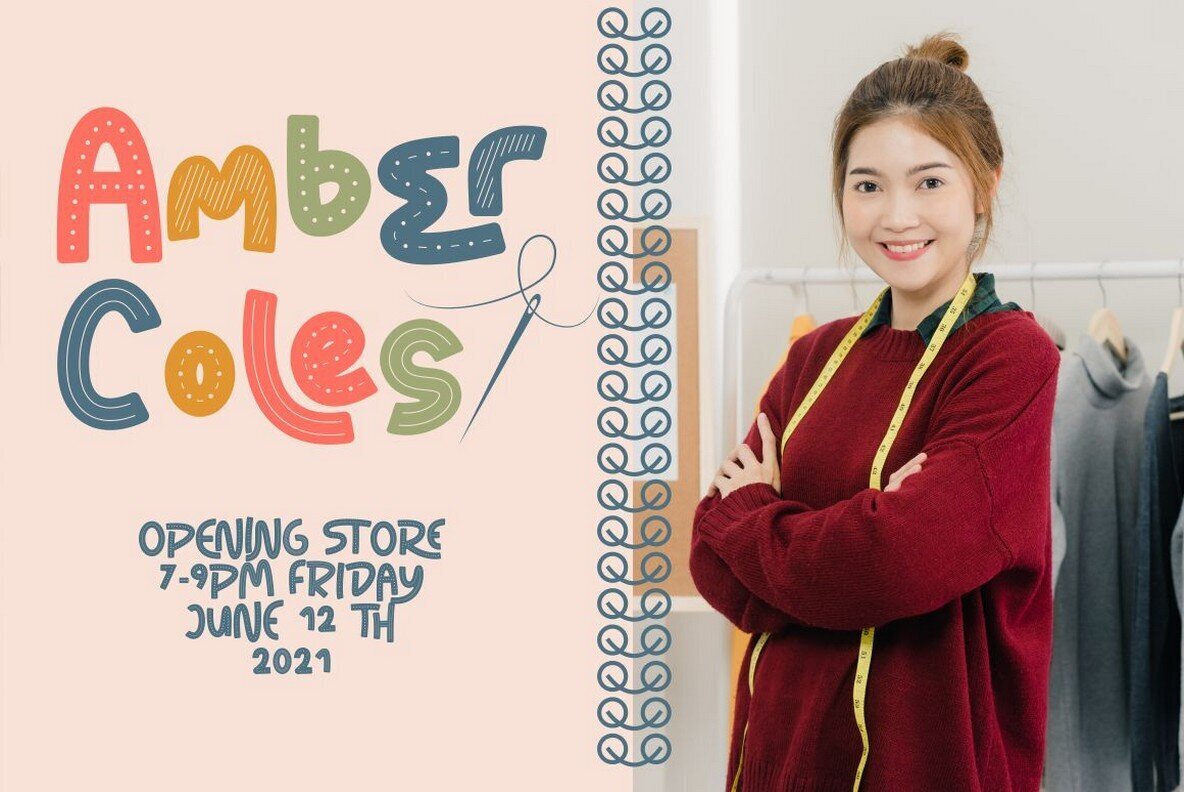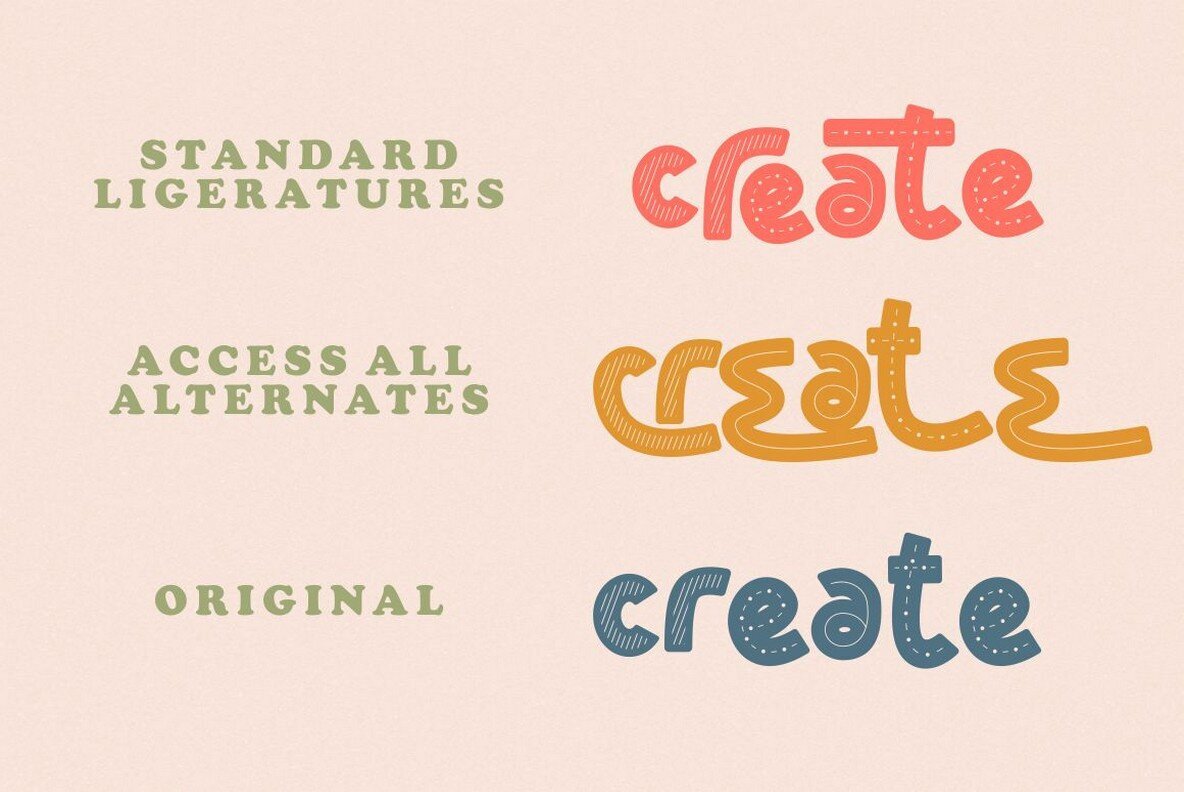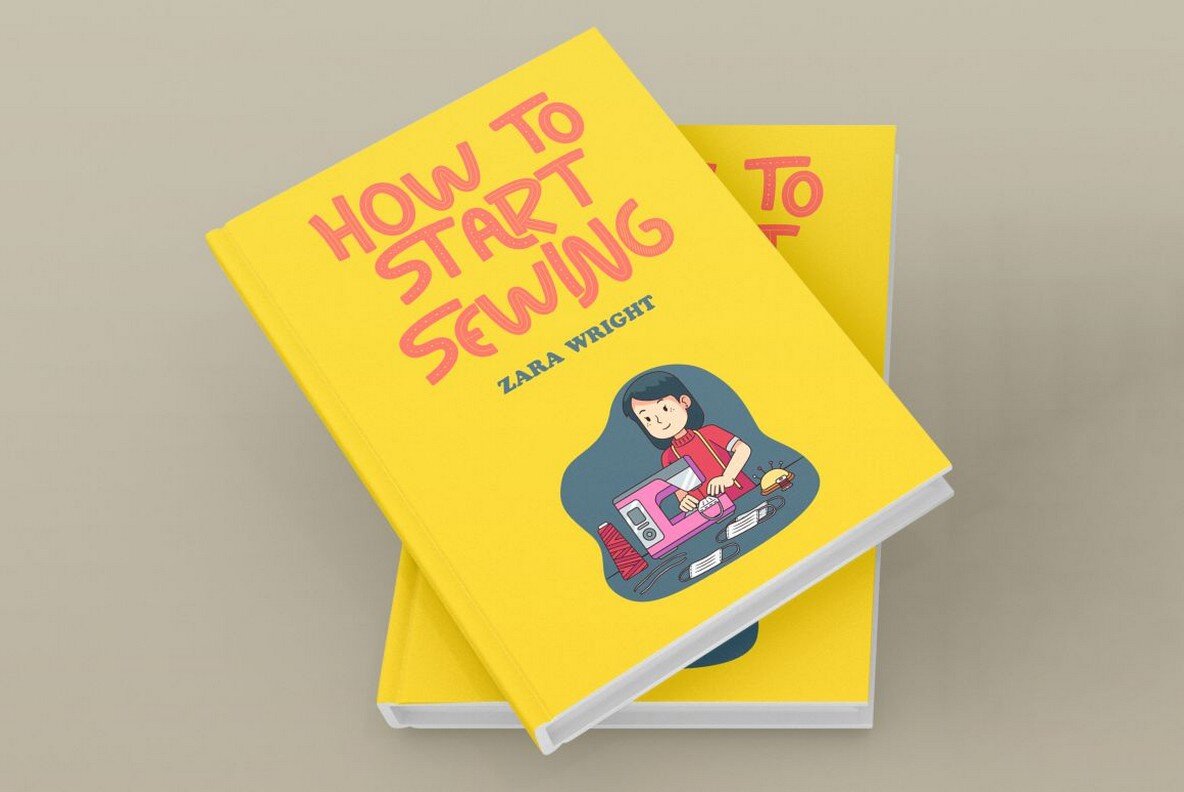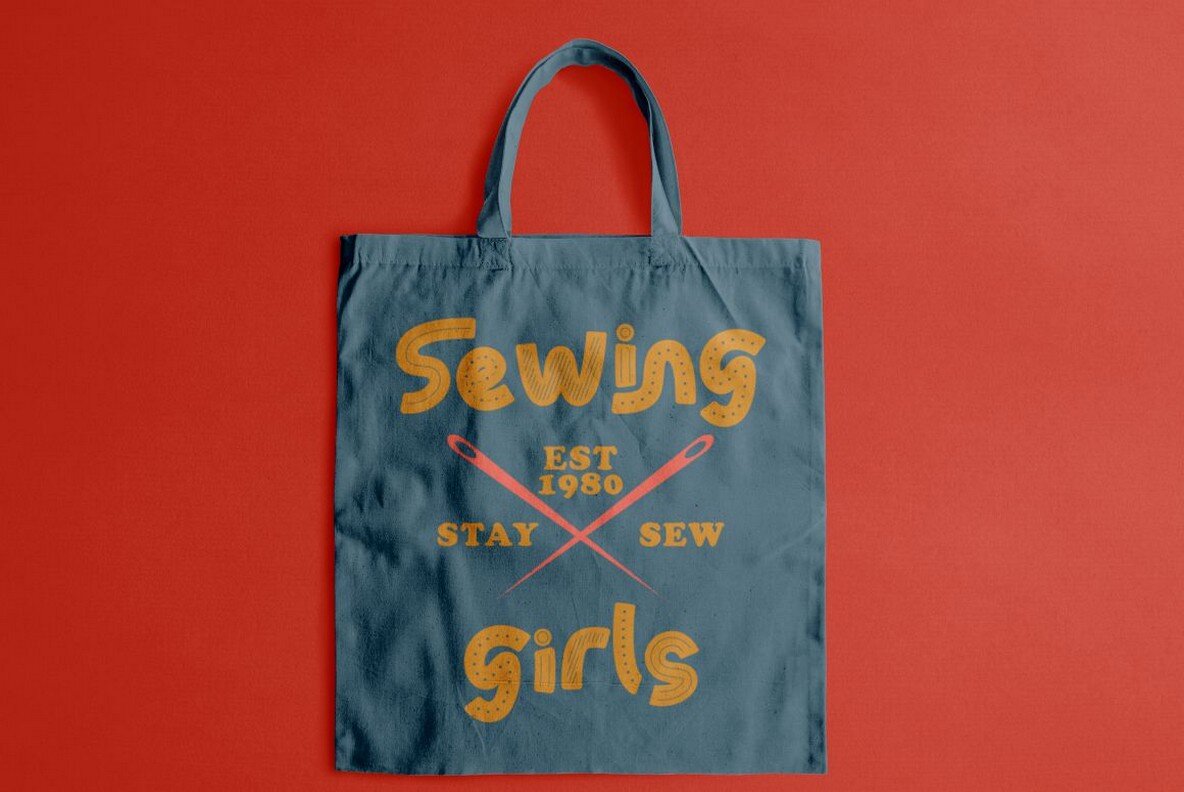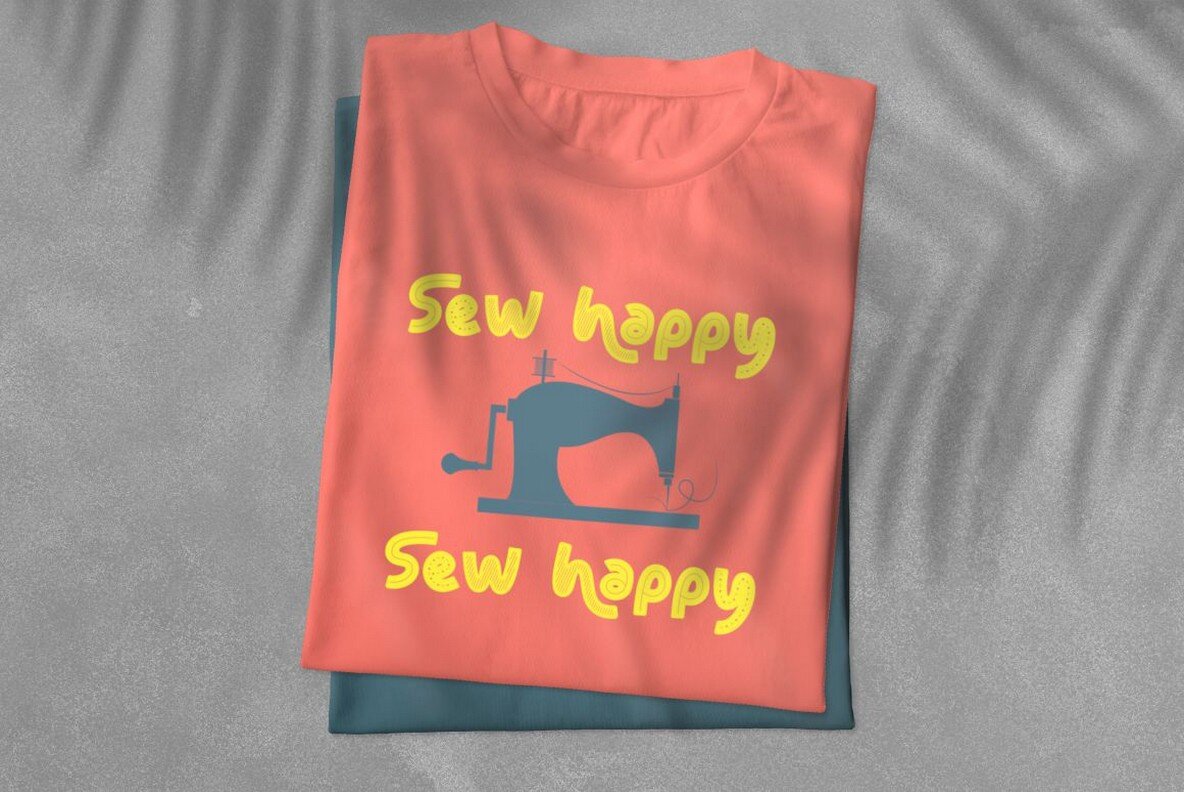
Tailor Craft Font
Tailor Craft is a bold, quirky display font that will be perfect for your project. It has fun and trendy cute characters to give it the right amount of personality!